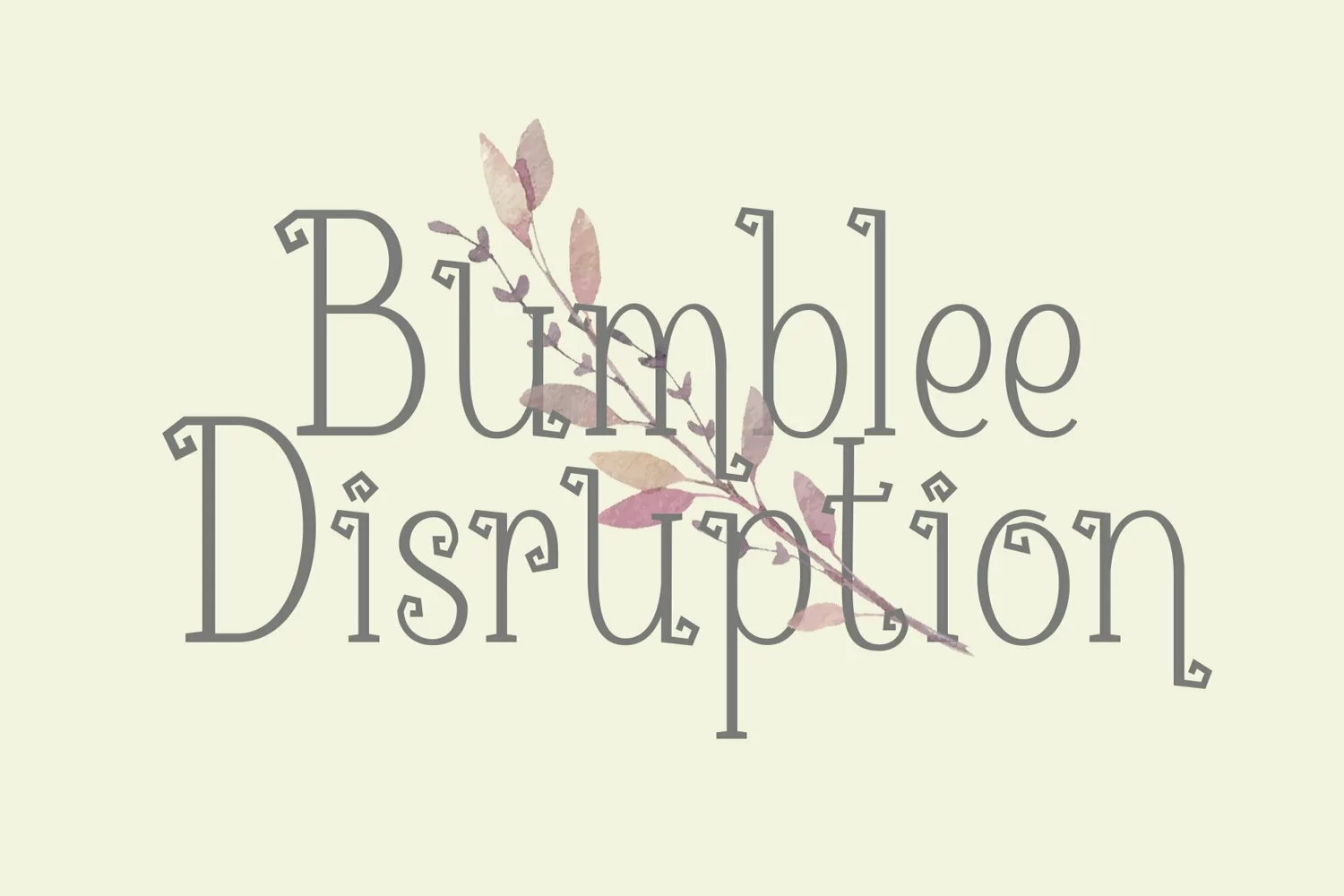
Monserta is a unique display font. This fantastic font is best suited for headlines of all sizes, this for is perfect for packaging, logo, headline, tshirt, and any other creative design project.